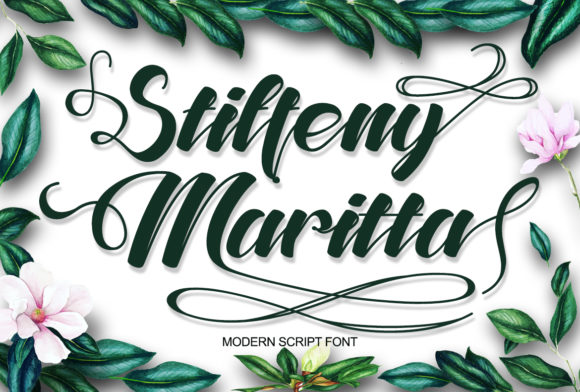
Stiffeny Maritta Font
Embark on an enchanting calligraphic journey with Stiffeny Maritta, a captivating script font that dances across digital canvases with grace and fluidity. Inspired by the art of tattoo script, this font exudes a timeless allure that will leave an indelible mark on your creative endeavors.
Immerse yourself in a world of endless possibilities as you explore the captivating curves and elegant flourishes of Stiffeny Maritta. Let your imagination soar as you craft bespoke logos, alluring invitations, and heartfelt messages that resonate with a touch of timeless charm. Its versatility extends to both digital and print realms, making it an indispensable tool for graphic designers, artists, and creatives alike.
With Stiffeny Maritta, you'll have the power to transform ordinary words into extraordinary works of art. Its enchanting touch will add a dash of magic to your social media posts, captivating your audience with its undeniable beauty. Whether you seek to create stunning headers, captivating blog titles, or alluring branding materials, this font is your muse.
Indulge in the exquisite details that make Stiffeny Maritta a masterpiece. Each letterform has been meticulously crafted to evoke a sense of effortless elegance, ensuring that your designs stand out amidst a sea of mediocrity. Its flowing strokes mimic the graceful movement of a calligrapher's pen, lending an air of authenticity to your creations.
Unleash your creativity and let Stiffeny Maritta guide your hand as you craft designs that speak to the soul. Its versatility knows no bounds, making it the perfect choice for a multitude of projects, from heartfelt wedding invitations to bold and eye-catching marketing materials. Experience the joy of effortless design as you witness your ideas blossom into captivating realities.
Discover the allure of Stiffeny Maritta today and embark on a creative journey that will leave a lasting impression. Let its timeless beauty elevate your designs to new heights and create masterpieces that will captivate and inspire for years to come.